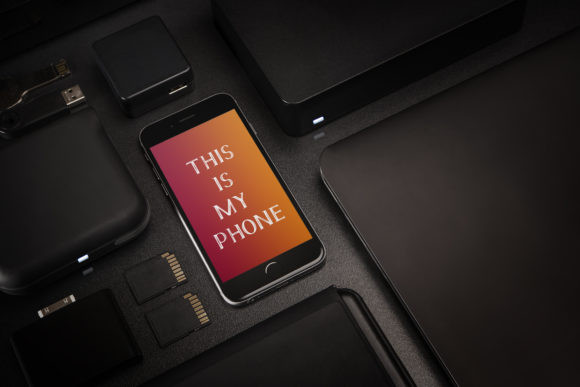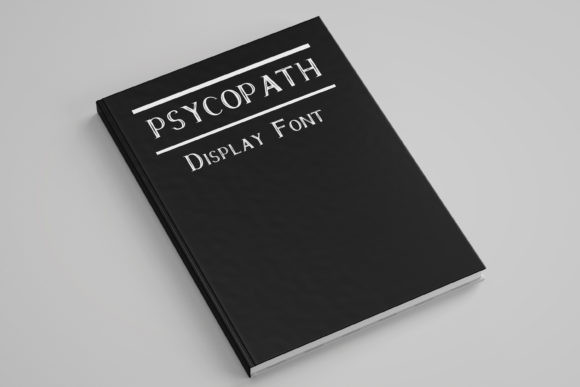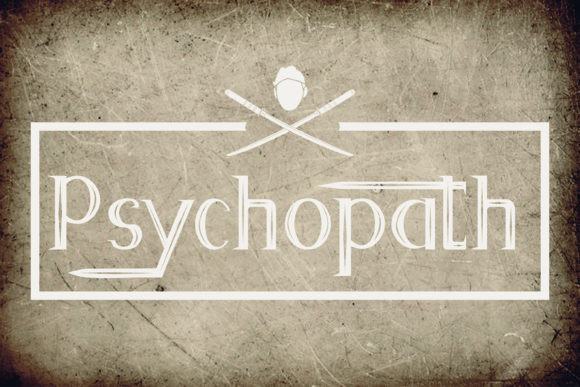
Psychopath Font
The psychopath is a display font featuring powerful katana blades. It’ll work perfectly for any spooky, horror, and Halloween-themed design.